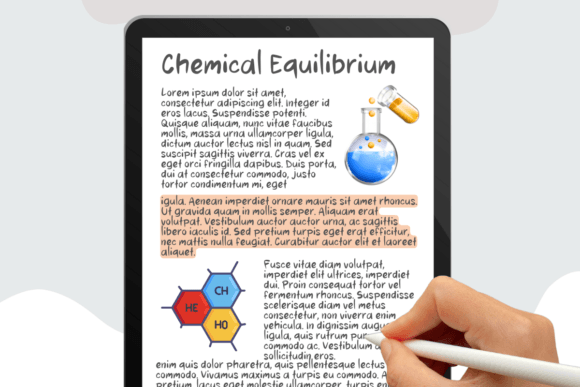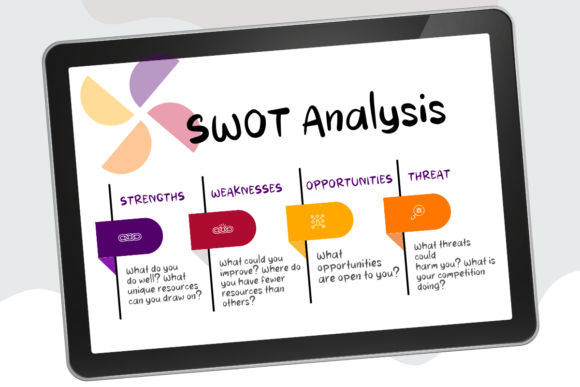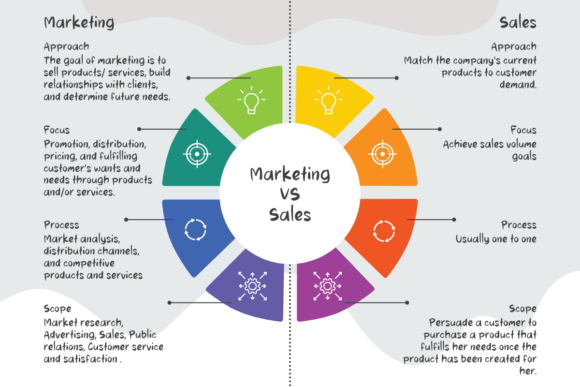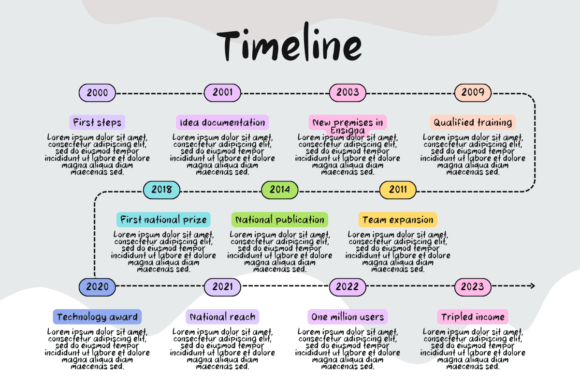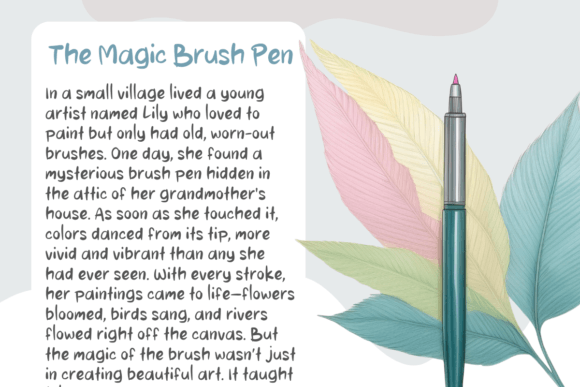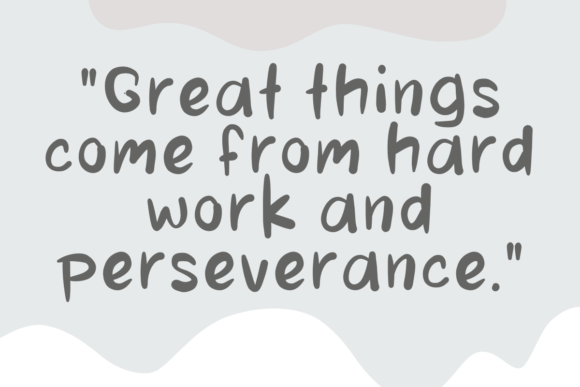
Unlock Creative Possibilities with Brush Type Font: The Ultimate Handwritten Font for Digital Note-Taking and Beyond
In the realm of digital design, the right font can elevate your project from ordinary to extraordinary. For those seeking a bold, expressive, and versatile font, Brush Type Font stands out as an exceptional choice. This bold brush handwritten font is not only perfect for digital note-taking but also incredibly adaptable, making it suitable for a wide array of projects. Whether you’re a designer, crafter, or digital artist, Brush Type Font is about to become your new favorite companion.
The Essence of Brush Type Font
Brush Type Font embodies the essence of handwriting with a bold and expressive brush stroke. Its unique character gives any text a personal and artistic feel, making it stand out in digital spaces. This font is meticulously designed to mimic the natural flow and texture of brush writing, providing a warm and inviting aesthetic to your designs.
One of the key advantages of Brush Type Font is its incredible versatility. It’s not limited to just digital note-taking; its applications extend far and wide. Here are some of the many projects where Brush Type Font can make a significant impact:
- Procreate Designs: Add a personal touch to your digital art and illustrations.
- Blog Posts: Engage your readers with visually appealing headings and quotes.
- Logos and Branding: Create memorable and distinctive brand identities.
- Digital Planners: Enhance the usability and aesthetic of your planners.
- Invitations and Greeting Cards: Add warmth and personality to your digital and printable invitations.
- Photo Albums: Make your digital photo albums more engaging and personal.
- And Much More: The possibilities are endless, from social media graphics to website headers.
Why Choose Brush Type Font?
Choosing Brush Type Font for your projects comes with numerous benefits:
- Unique Aesthetic: Its bold brush strokes offer a unique and artistic look.
- Readability: Despite its bold nature, the font remains highly readable, making it perfect for both headings and body text.
- Flexibility: Use it for digital projects, print materials, or anything in between.
- Time-Saving: Its versatility means you can use it across multiple projects, reducing the need for multiple fonts.
Tips for Using Brush Type Font
To get the most out of Brush Type Font, consider the following tips:
- Mix and Match: Combine Brush Type Font with other fonts for contrast and hierarchy.
- Play with Colors: Take advantage of the font’s brush texture by experimenting with different colors and gradients.
- Adjust Size and Weight: Don’t be afraid to vary the size and weight of the font to create visual interest.
Brush Type Font is more than just a font; it’s a creative tool that can transform your digital designs and projects. Its bold, expressive strokes bring a level of personalization and artistic flair that’s hard to achieve with standard fonts. Whether you’re a seasoned designer or a crafter looking to add a professional touch to your work, Brush Type Font is an invaluable resource. Explore its possibilities and discover how it can elevate your creative projects to new heights.
Embrace the creative potential of Brush Type Font and let your designs speak with a bold, confident voice. With its versatility, readability, and unique aesthetic, it’s poised to become an essential part of your design toolkit.